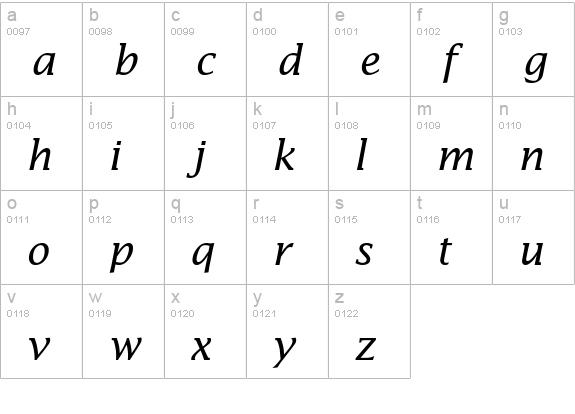
TR America Italic Font Details
TR America Italic is a distinctive, italic variant in the TR typeface family \xE2\x80\x94 well suited to design and typography projects.
TR America Italic is a modern and stylish font that exudes sophistication and elegance. With its sleek and slanted design, this typeface is perfect for adding a touch of flair to any project. The italicized characters flow gracefully, creating a sense of movement and dynamism on the page. What's even better is that TR America Italic is available for free download at FontsMarket.com. This means you can easily access this beautiful font without any cost, making it a valuable addition to your font library. Whether you're designing a website, creating a logo, or working on a print project, TR America Italic is sure to elevate your design with its unique charm and versatility. Download it today and unleash your creativity with this stunning typeface.